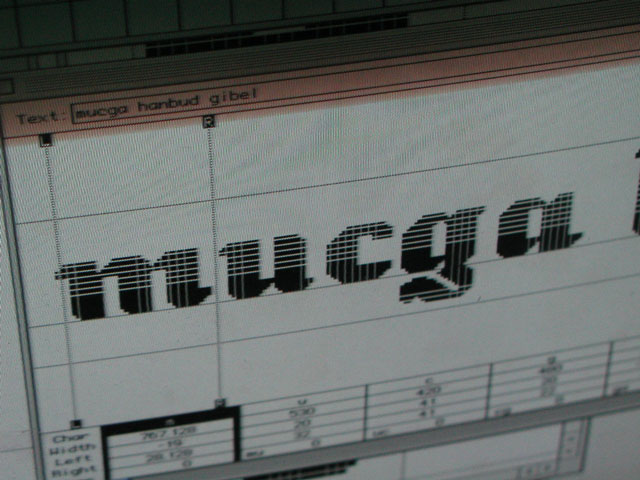
![]() ![]() ![]() screen type basic info : presentation half way : ![]() Our group started the assignment by sketching some basic characters, such as 'a', 'n' and 'o' to a very small point size for screen use. After some hard puzzling and web browsing we came to a conclusion that small point sizes are already quite deeply studied. We found good examples of well working screen types in small sizes (x-height 5), but we also recognized that most of them only exist in one style or two: there are not really big families available. But this direction would be a hard way to go for such a small time period. And pretty soon we found out that there is not many screen types made for headline use. Therefore we decided to sketch letters to really big point sizes. This sketching we did just by using paper and pen - by this way we didn't have any the technical problems and we were able to concentrate to essential. All of us started to put pixel after pixel at point size 48. That size is easily scalable to 24 and 12 point sizes - just in case if we have some extra time on next week. The question is: what kind of forms give the most pleasure on screen platform? Round forms look really rubbish and cheap, and straight lines everywhere look extremely dull. At one point one of us made upright italic 'h' that was using 45 degrees angle of broadnip pen. 45 degrees gives a smooth line, so we decided to go on by doing other letters as well. At the moment we are still fine tuning the word 'hamburgerfonstiv' on paper and also already in Fontographer. We had technical problems because Sami wanted us to start digitalizing the characters in Fontastic Plus. That program is really old, made in 1985, and it was not anymore working really well in these new MACs. And yeah, we want to expand the font by adding swashes, ligatures, alternative letterforms, maybe outline, shadow, colors... so let's see how far we get in Lahti! ![]()